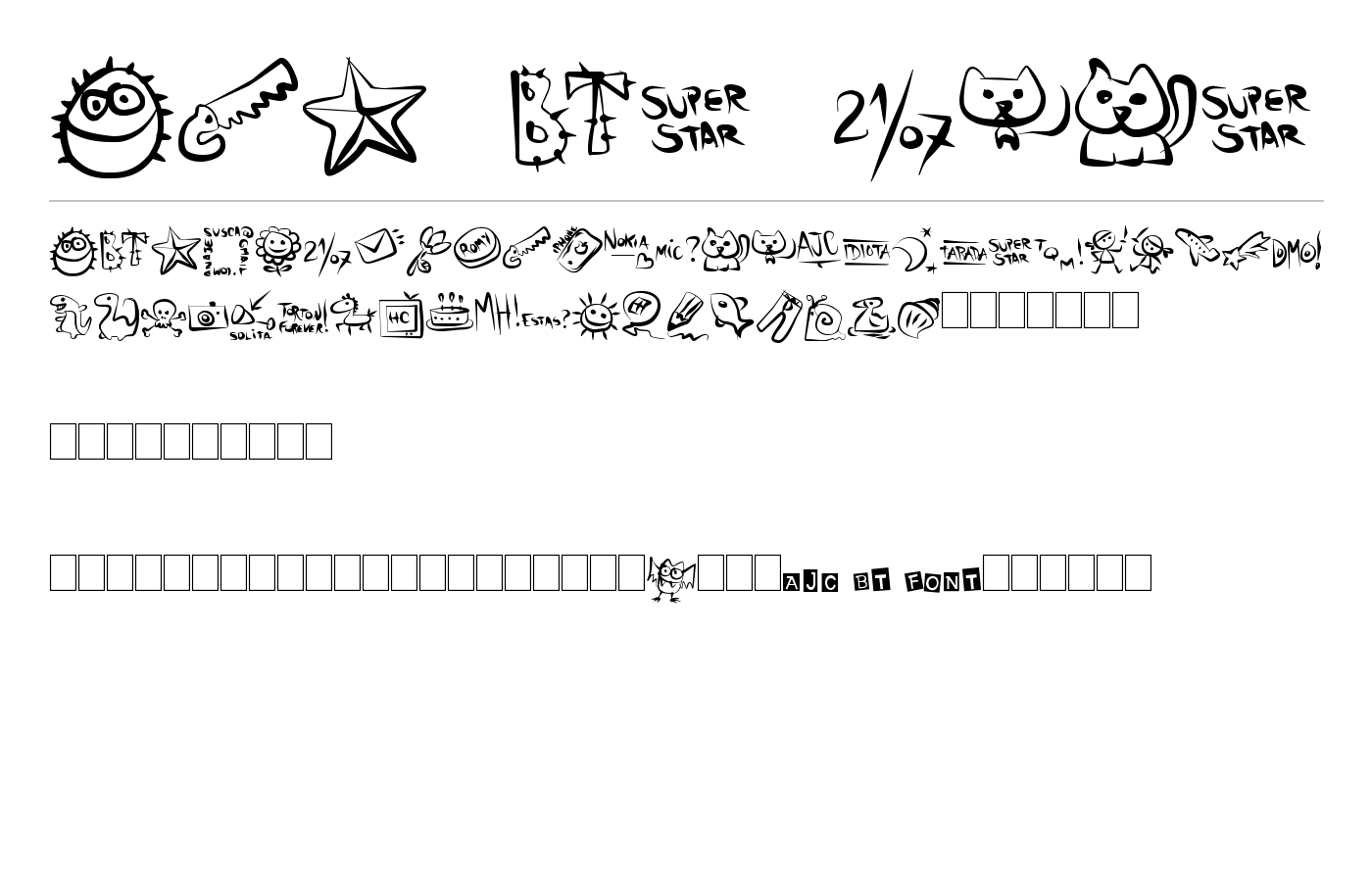
AJC BT FONT is a playful, hand-drawn typeface featuring quirky illustrations and whimsical letter shapes that bring a fun, creative vibe to any design. Its irregular, sketch-like style makes it perfect for casual, artistic projects, children's materials, and informal branding that seeks a lively, unique personality. This font shines in playful logos, posters, and creative headlines where an expressive and dynamic look is desired.
AJC BT FONT